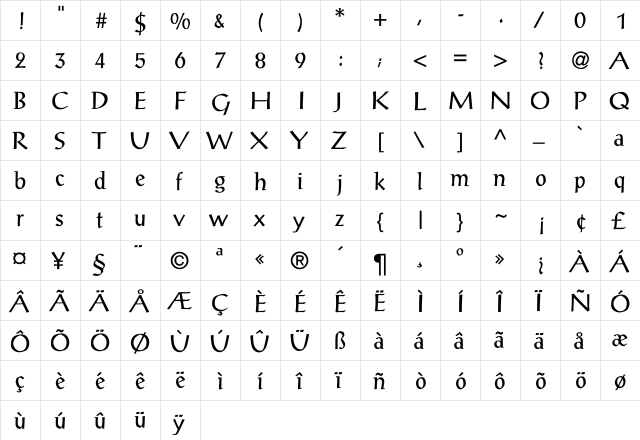
PostAntiqua-Roman Regular
Design Context for PostAntiqua-Roman Typeface
PostAntiqua-Roman takes a measured approach to typography — its balanced proportions and neutral character make it a reliable workhorse for both digital and print work.